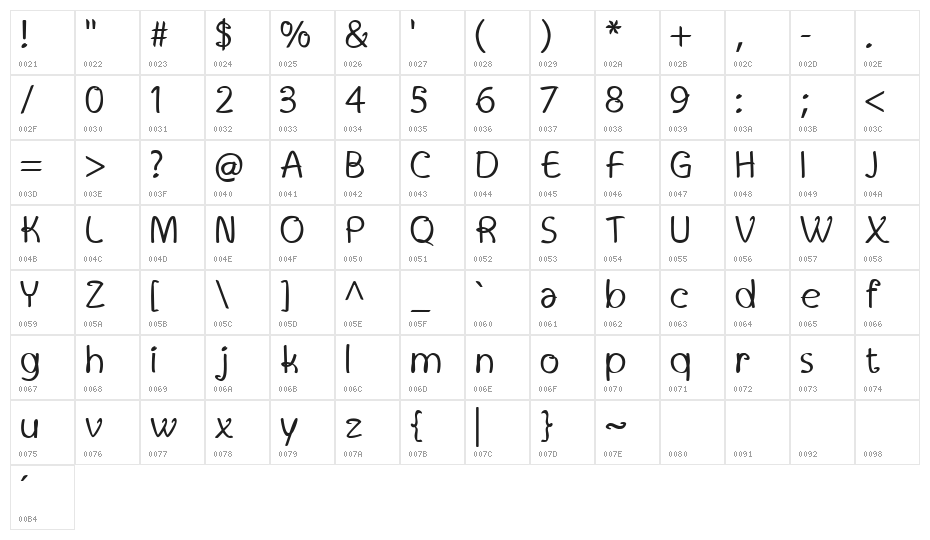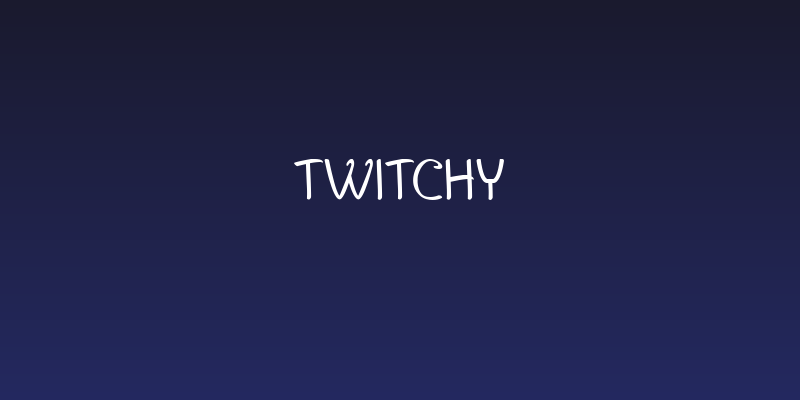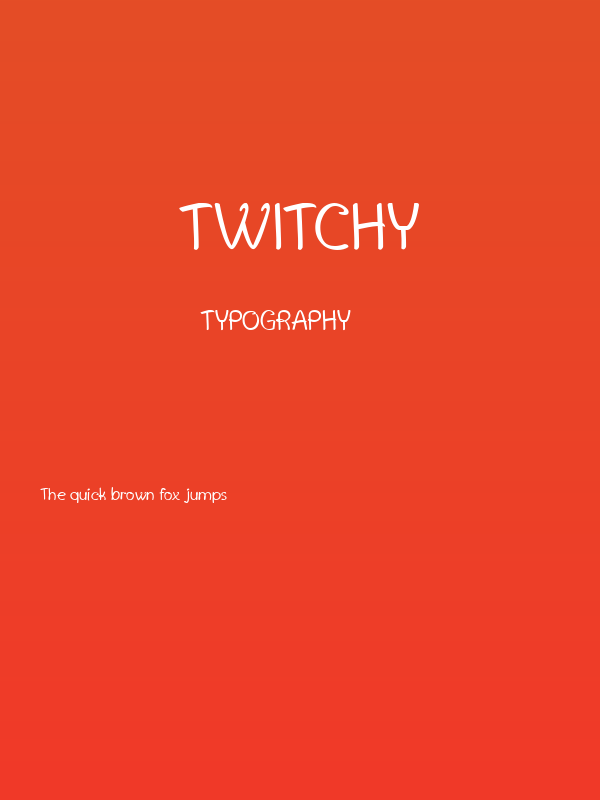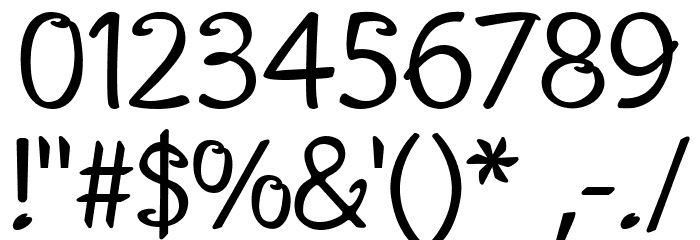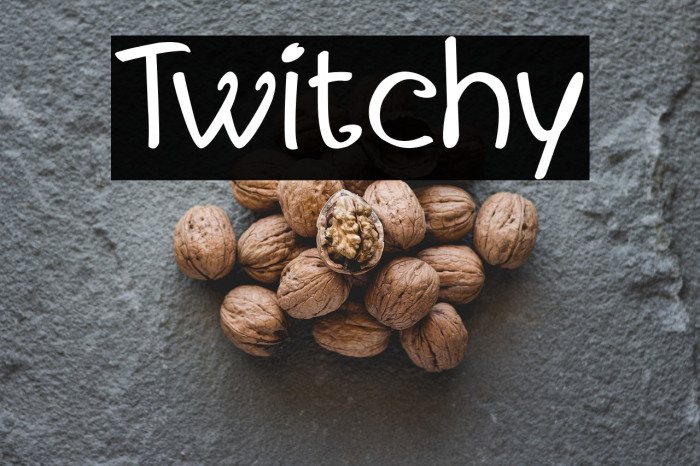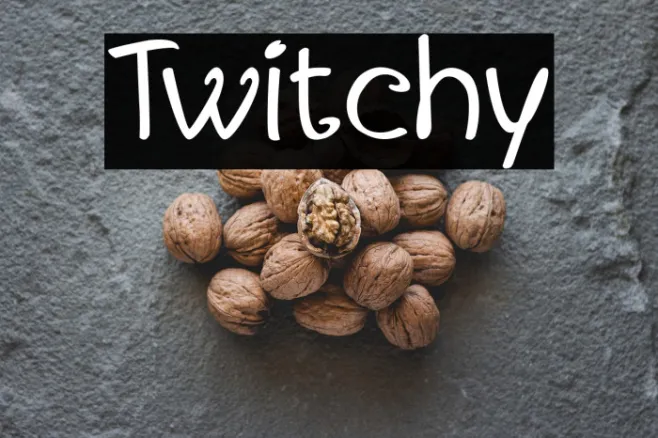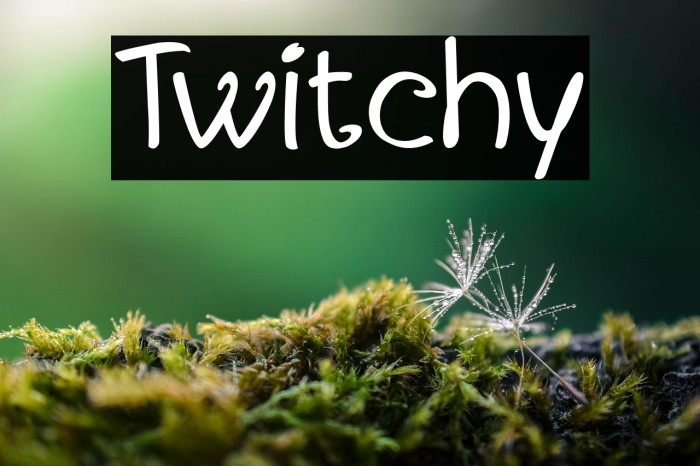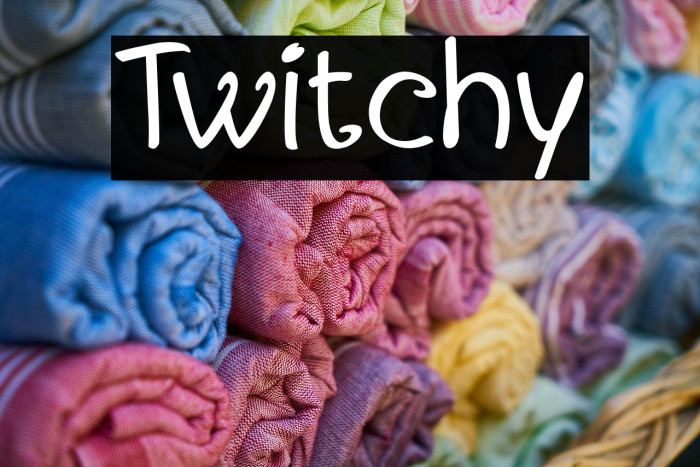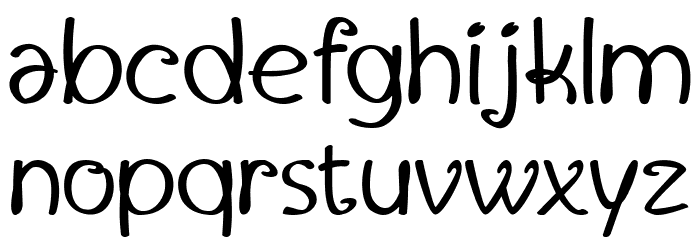
Twitchy Font
Twitchy Description
This playful and quirky font features a handwritten style with a lively, energetic appearance. The characters are slightly irregular, giving them a whimsical and informal feel. The strokes are smooth and rounded, with a consistent thickness throughout, contributing to its approachable and friendly look. The uppercase and lowercase letters maintain a cohesive style, while the numerals and special characters complement the overall design. This font's unique personality makes it stand out, making it suitable for creative and fun projects.